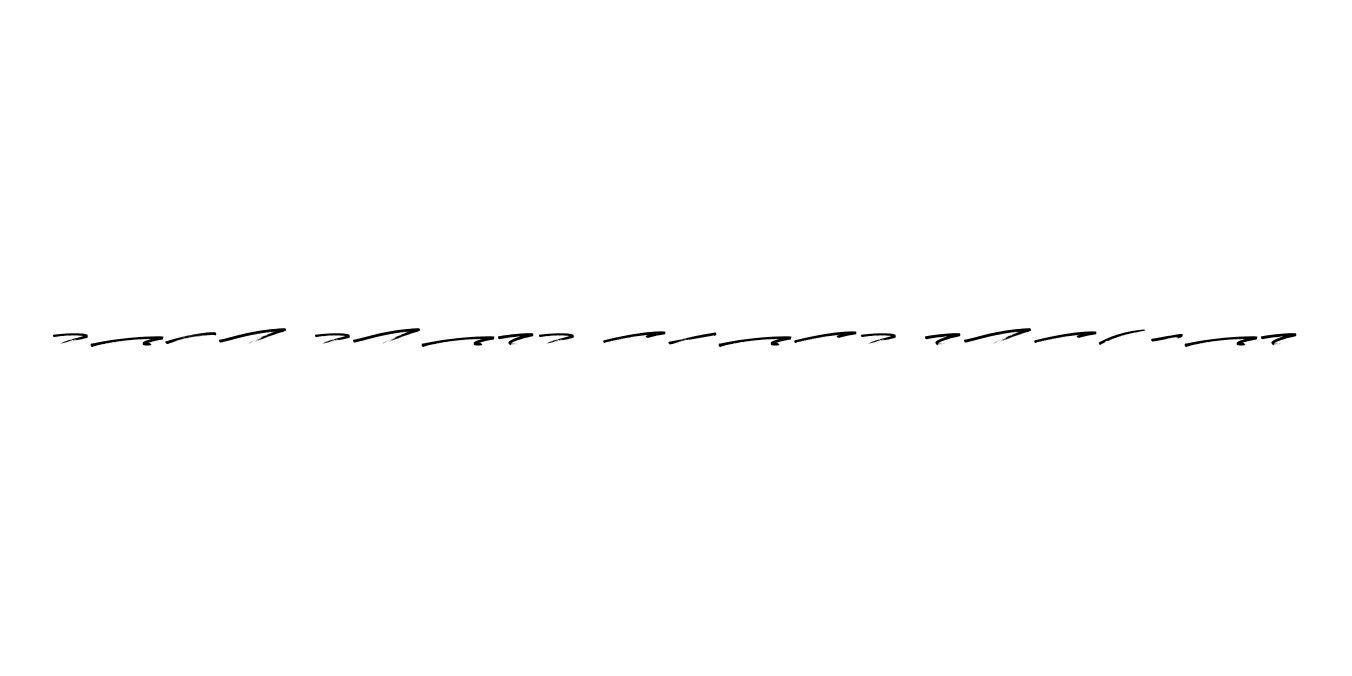
Have Heart Swash Regular
Designed by Sam Parrett
Have Heart Swash Regular is a specialized decorative font designed by Sam Parrett of Set Sail Studios. It was created as an essential companion to the popular 'Have Heart' brush script family, providing users with a set of 12 hand-drawn swashes designed to perfectly complement the main font's raw, marker-style aesthetic. Each swash was meticulously crafted using a real marker pen on paper, ensuring that the natural textures and irregular edges are preserved to give designs an authentic, hand-lettered finish.
The font is widely recognized in the design community for its versatility in adding a professional touch to typography projects. By using Have Heart Swash Regular, designers can easily add underlines, flourishes, and decorative strokes to logos, headers, and social media graphics. Since its launch, it has become a go-to tool for creators looking to bridge the gap between digital typography and organic, manual artistry, making it a staple for contemporary branding and streetwear styles.
Have Heart Swash Regular Best Uses
Perfect for creating custom-looking hand-lettered brand identities.
Ideal for adding flourishes to Instagram quotes and trendy graphic posts.
Adds an artisanal and bespoke feel to labels and organic product lines.
Great for adding decorative tails and underscores to romantic invitations.